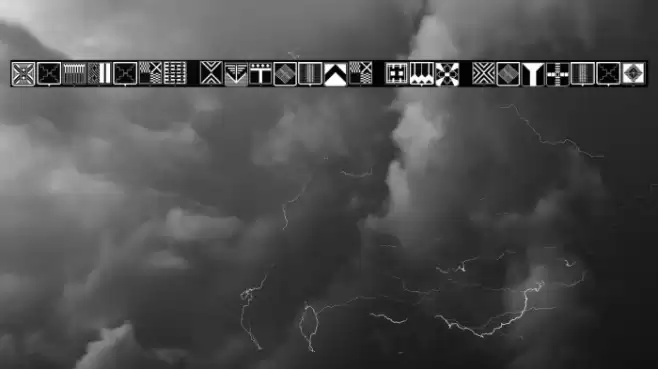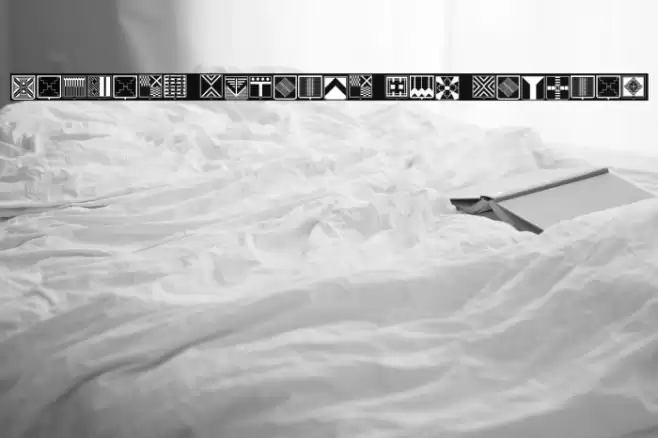
Fantasy Shields Two Regular Font
Fantasy Shields Two Regular Description
A decorative collection of shield icons, each featuring unique geometric, heraldic, or symbolic designs in black and white. The glyphs are highly stylized and illustrative, with strong outlines and intricate internal patterns, evoking medieval and fantasy themes.
A display font of illustrated fantasy shield icons from Regular fonts.
- Proposed Projects: Game design, fantasy book covers, RPG maps, heraldic posters, themed invitations, branding for fantasy events.
- Overall Style: Decorative, Fantasy, Heraldic
- Use Case: Logos, Icons, Themed graphics, Decorative initials